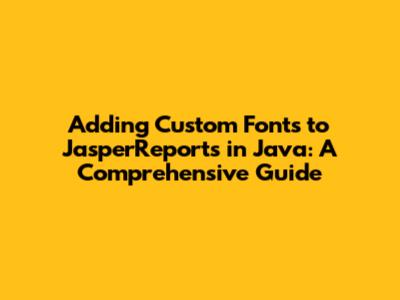
- Enhance Branding: Align your reports with your brand identity by using fonts that reflect your company's style and personality. This is huge for consistency and building brand recognition.
- Improve Readability: Certain fonts are designed for optimal readability, especially in print. Choosing the right font can make a report much easier to read and understand, which is critical for user experience.
- Create Unique Designs: Step away from the generic look and create reports that stand out. Custom fonts offer a wide range of styles, from elegant serifs to modern sans-serifs, allowing you to tailor your reports to specific needs.
- Support Special Characters: Some fonts include special characters or glyphs that are necessary for certain languages or technical fields. This ensures that your reports can accurately display all the information needed, regardless of language or special symbols.
- Increase Professionalism: Custom fonts instantly elevate the professional appearance of your reports. A well-designed report with a carefully chosen font conveys attention to detail and a commitment to quality. This helps build trust and credibility with your audience.
Hey guys! Ever wanted to spice up your JasperReports with some cool, unique fonts? You're in luck! This guide will walk you through everything you need to know about adding custom fonts to your JasperReports in Java. We'll cover all the steps, from setting up your environment to seeing those beautiful fonts in your reports. Let's dive in and make those reports pop!
Why Use Custom Fonts in JasperReports?
So, why bother with custom fonts, right? Well, using custom fonts in JasperReports can significantly boost the visual appeal and professionalism of your reports. Think about it: standard fonts can be a bit… boring. Adding custom fonts allows you to:
Basically, by integrating custom fonts you are not just making reports but building the presentation of data. Using the right font can transform a report from a simple collection of data into an engaging and visually appealing document. That's a game-changer!
Setting Up Your Environment
Before we can start adding fonts, we need to set up our Java environment. This involves a few key steps to ensure everything runs smoothly. First things first, you'll need:
Once you have these components set up, you're ready to move on to the next steps! Ensure everything is correctly configured before moving on. Make sure your IDE can locate the JasperReports library, that your project can compile successfully, and that you have a directory dedicated to fonts in your project's resource folder.
Adding Fonts to Your JasperReports
Alright, now for the fun part: adding those custom fonts! Here’s how you do it, step by step:
1. Place the Font Files
Place your .ttf or .otf font files in a designated folder within your project. The src/main/resources/fonts folder, as mentioned earlier, is a good choice. This keeps your fonts organized and easy to find. This directory should be easily accessible to your JasperReports project during the build and runtime.
2. Create a Font Extension File
Create an XML file (e.g., jasperreports_extension.xml) in your src/main/resources directory. This file tells JasperReports where to find and how to use your custom fonts. This file acts as a configuration file, detailing the necessary font properties and locations. Add the following content to the jasperreports_extension.xml file. Adapt this code to reflect your exact font names and locations.
```xml
<?xml version="1.0" encoding="UTF-8"?>
<extensions xmlns="http://jasperreports.sourceforge.net/jasperreports/extension"
xmlns:xsi="http://www.w3.org/2001/XMLSchema-instance"
xsi:schemaLocation="http://jasperreports.sourceforge.net/jasperreports/extension http://jasperreports.sourceforge.net/xsd/extension.xsd">
<fontFamily name="MyCustomFont">
<normal>
fonts/MyCustomFont-Regular.ttf
</normal>
<bold>
fonts/MyCustomFont-Bold.ttf
</bold>
<italic>
fonts/MyCustomFont-Italic.ttf
</italic>
<boldItalic>
fonts/MyCustomFont-BoldItalic.ttf
</boldItalic>
<pdfEncoding>
Identity-H
</pdfEncoding>
<pdfEmbedded>
true
</pdfEmbedded>
</fontFamily>
</extensions>
```
* **`<fontFamily name="MyCustomFont">`**: Replace `